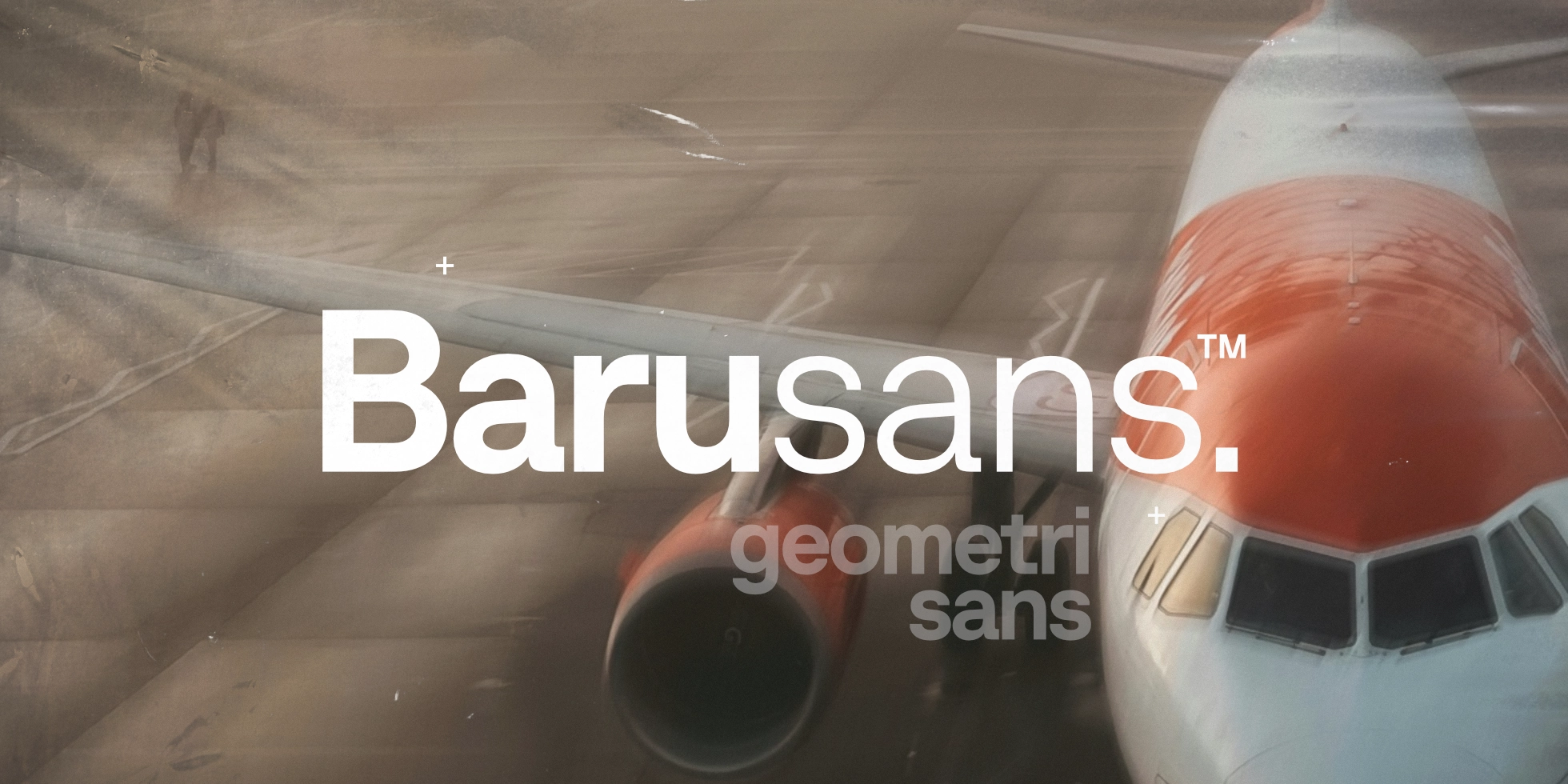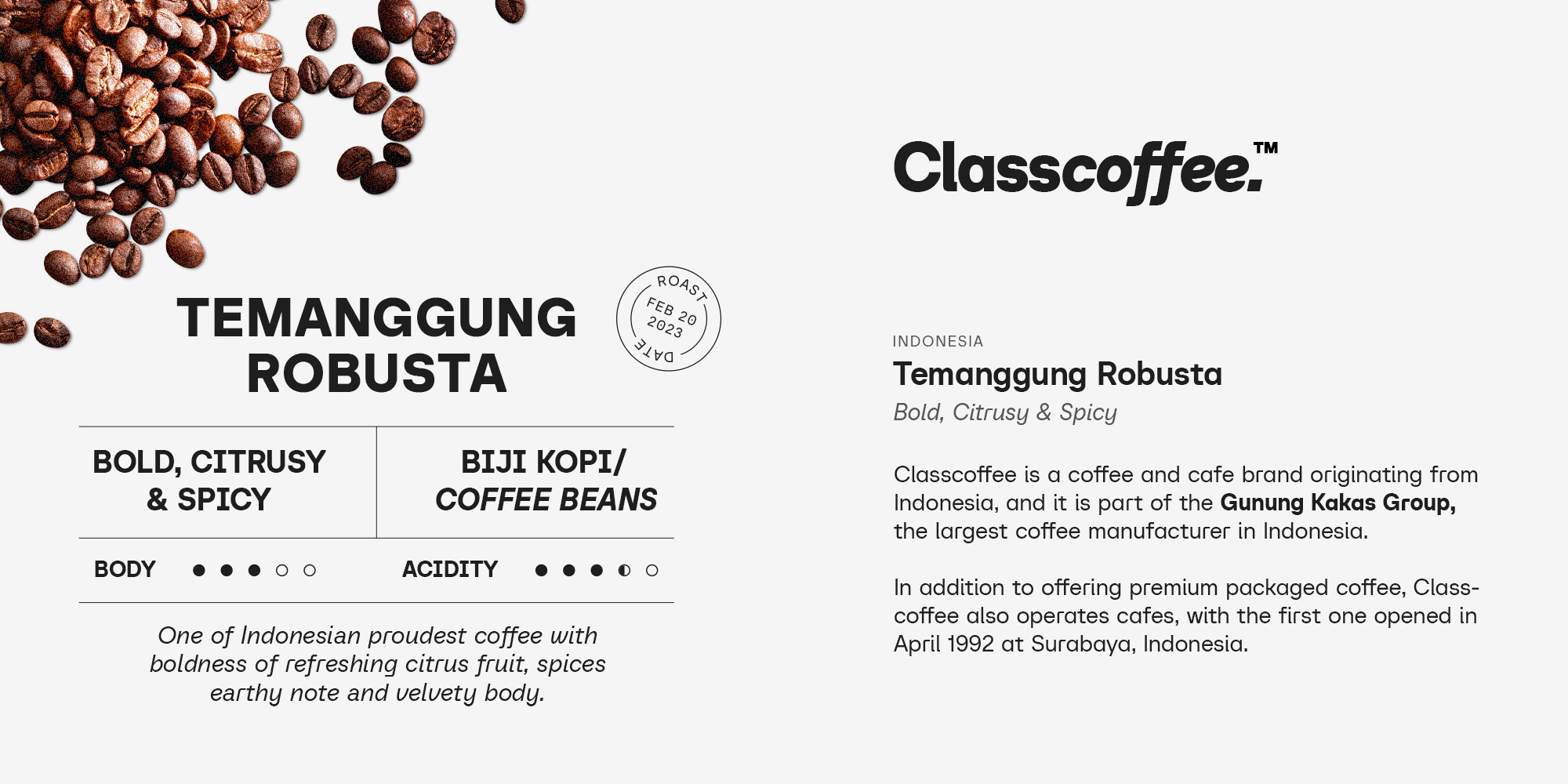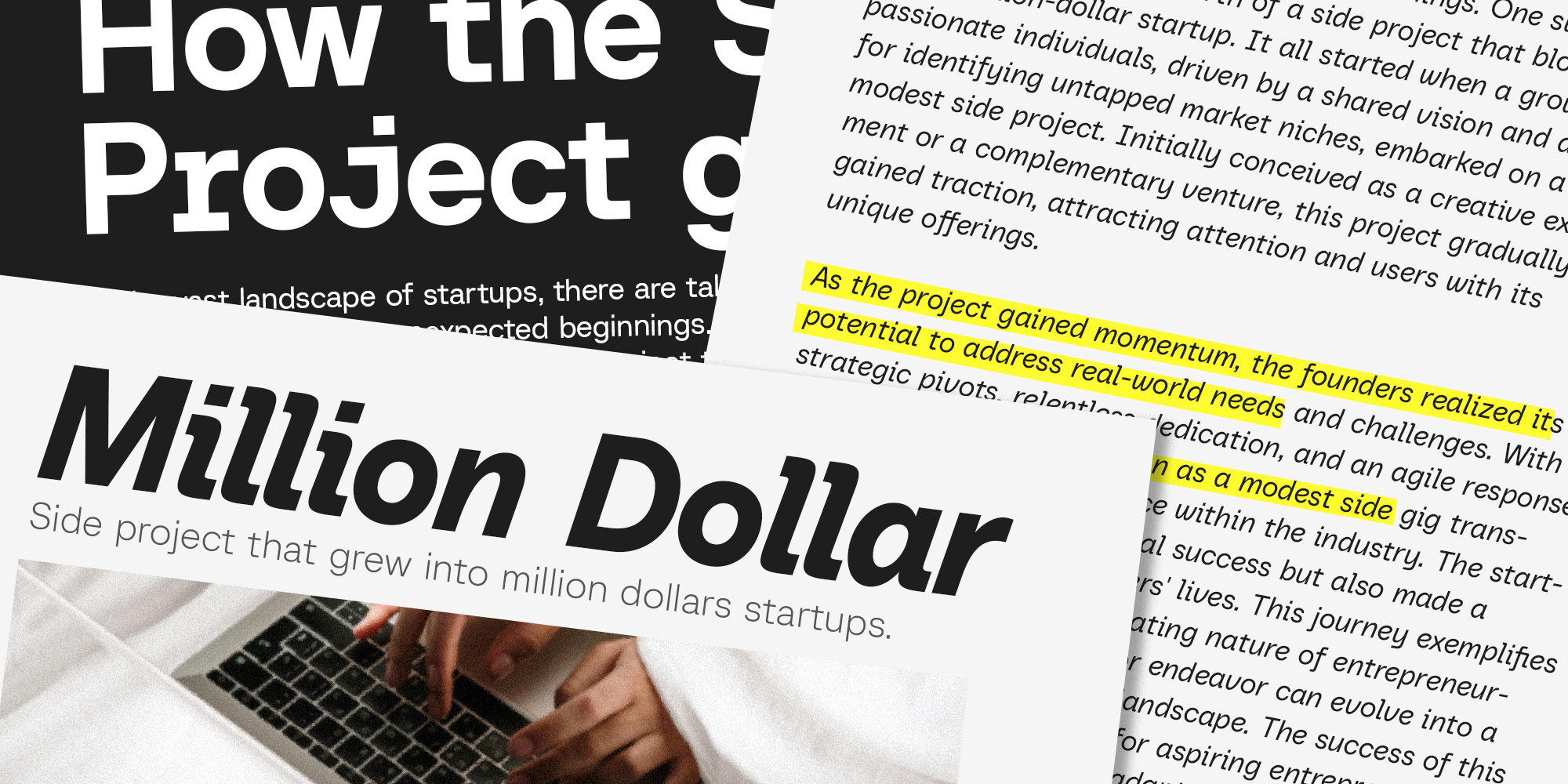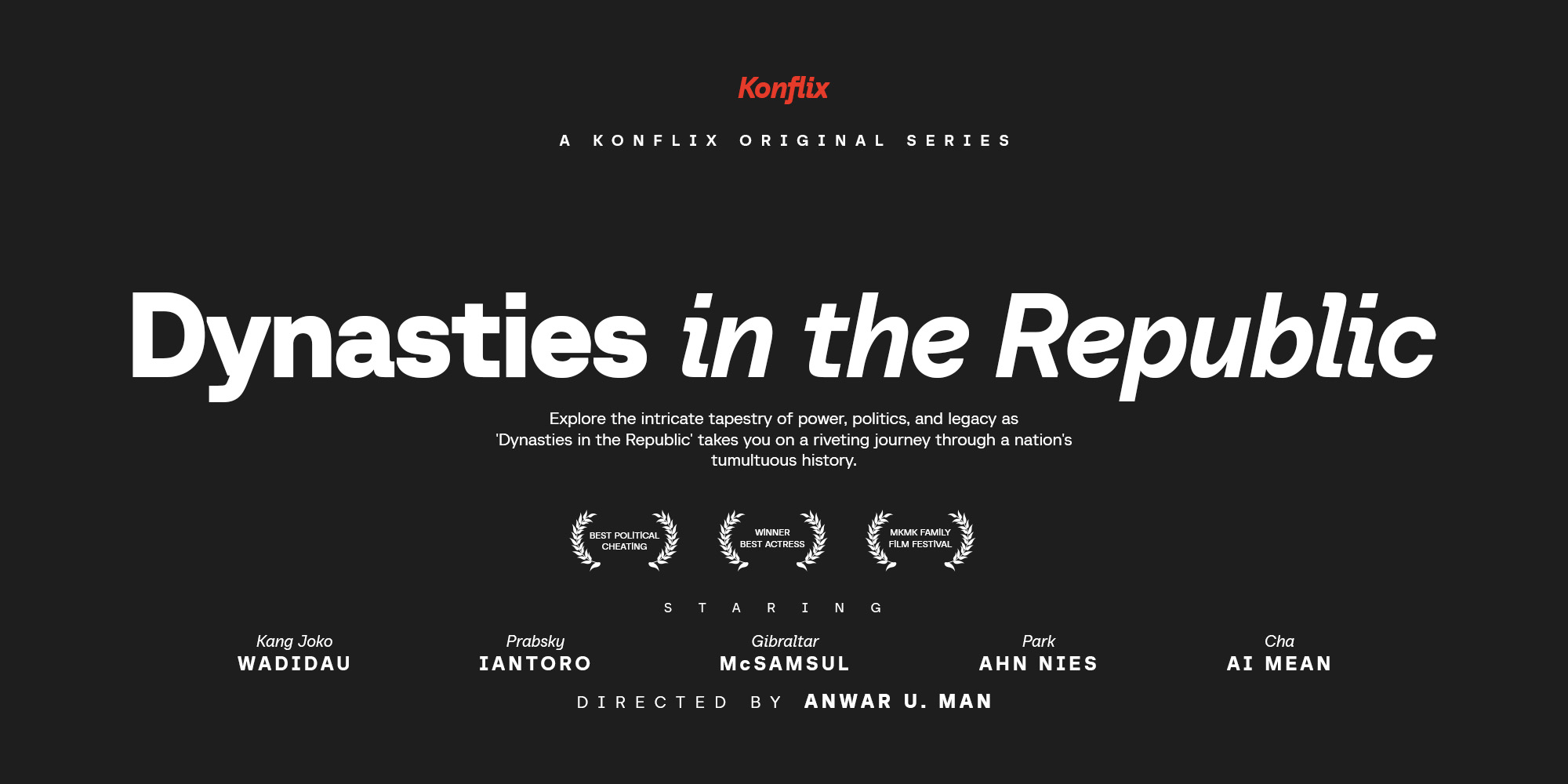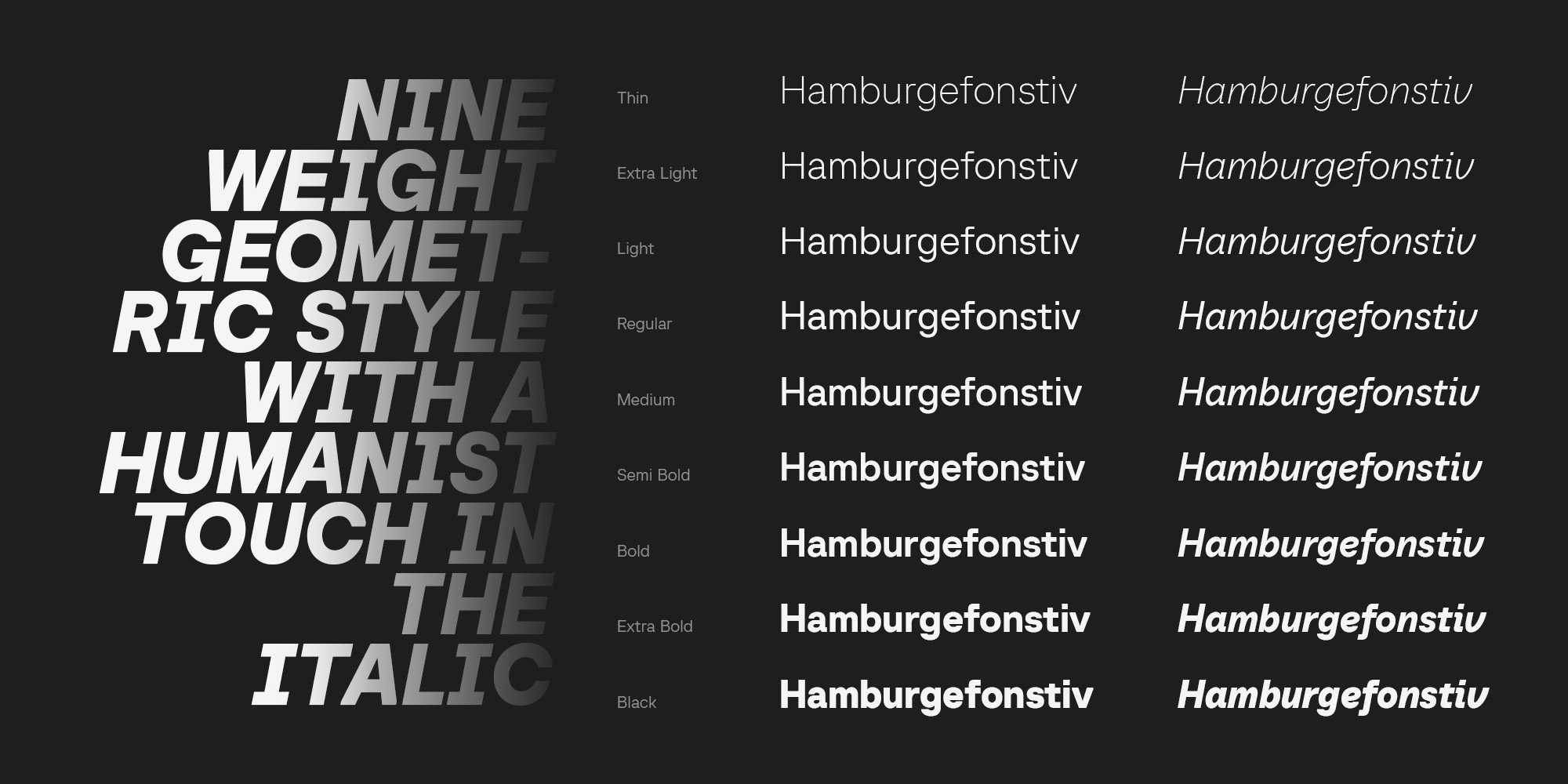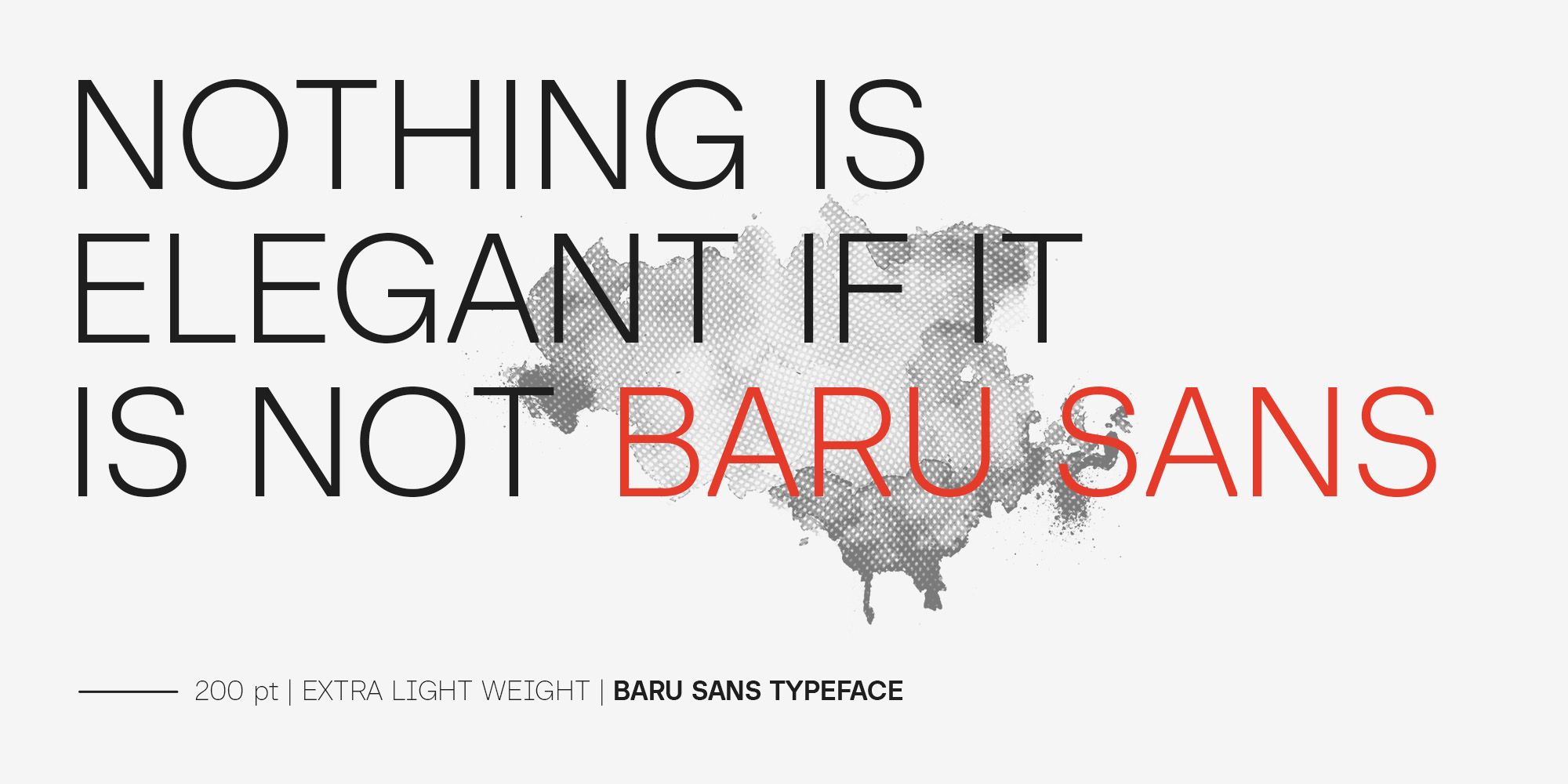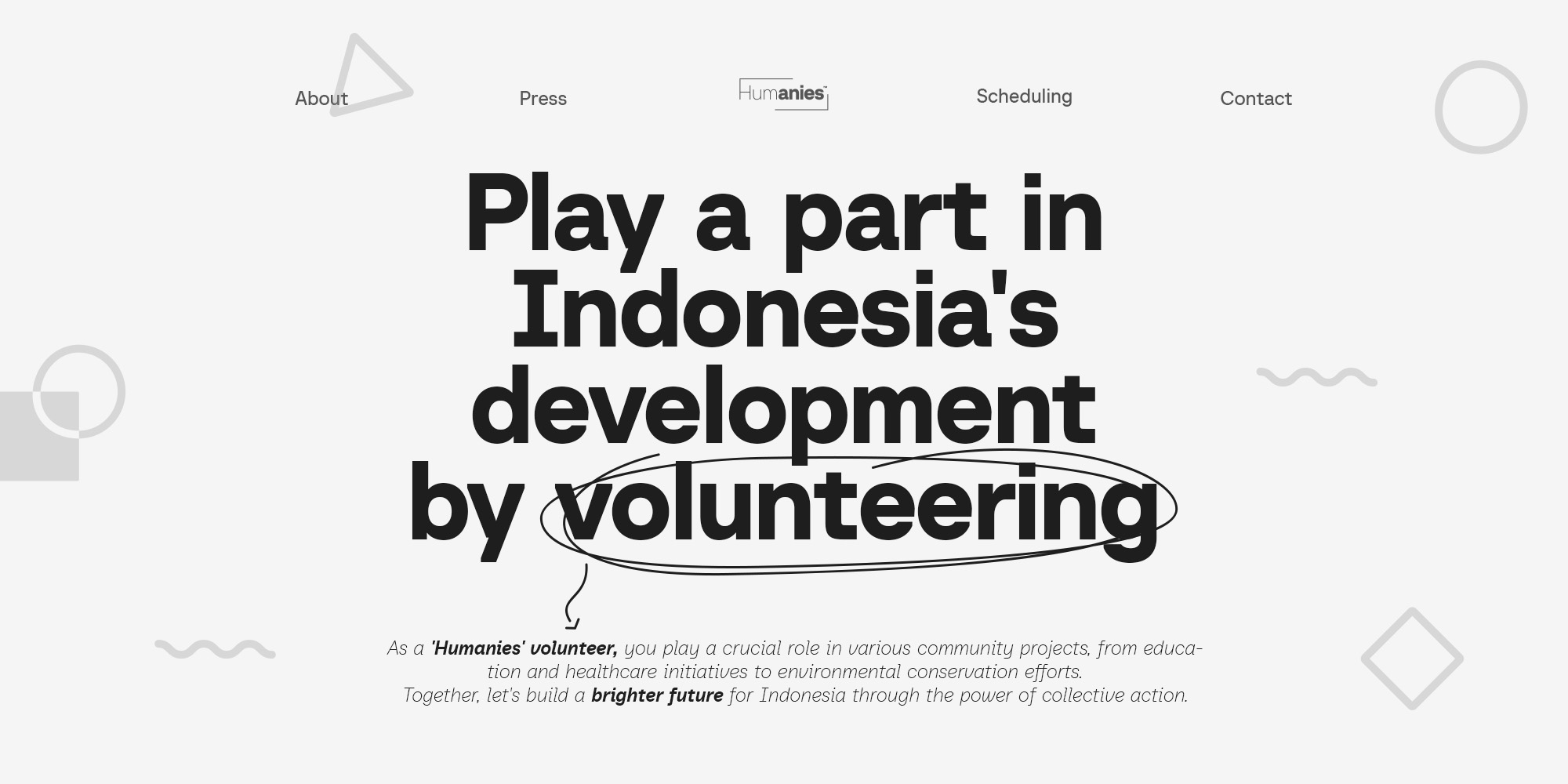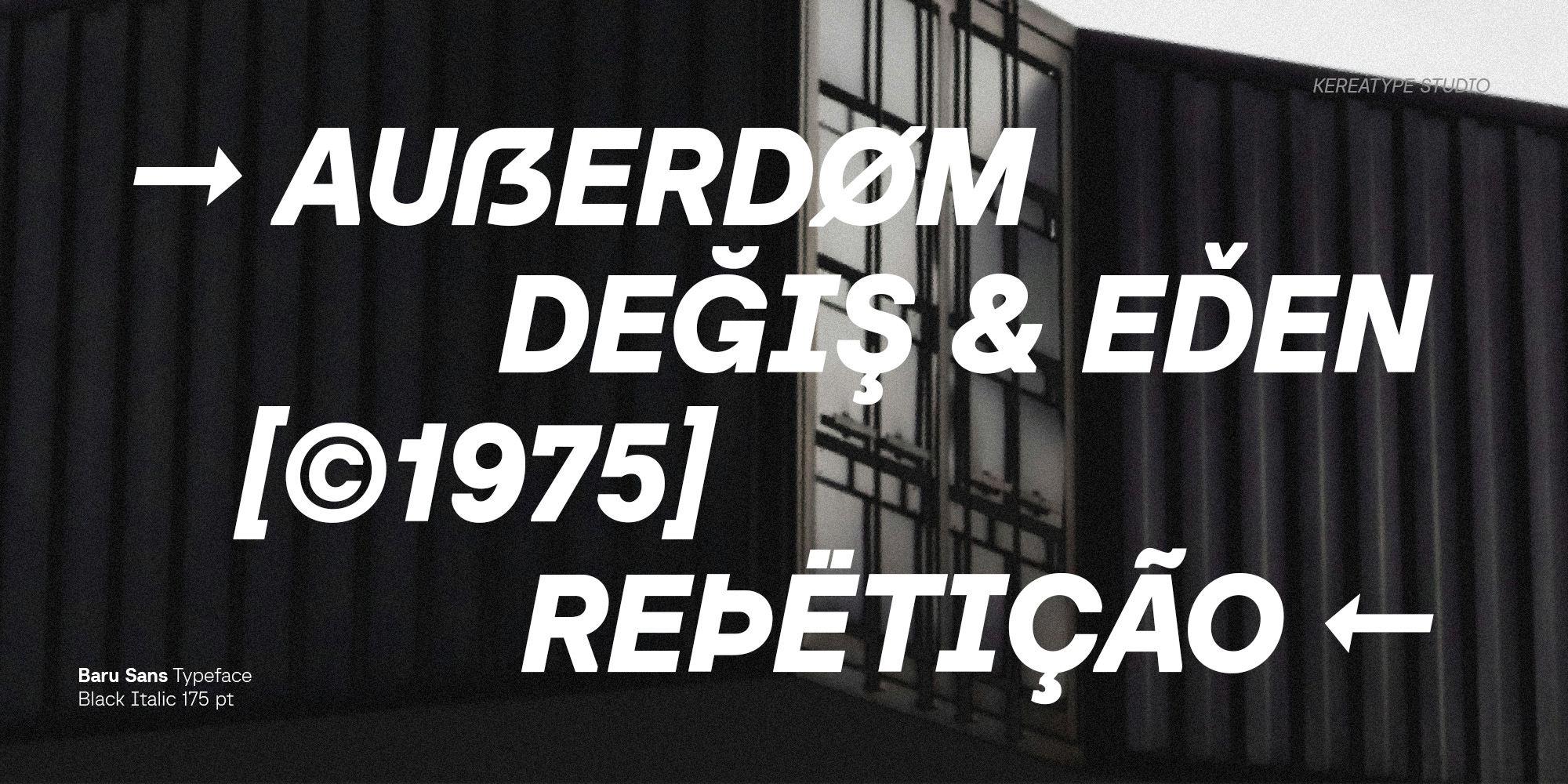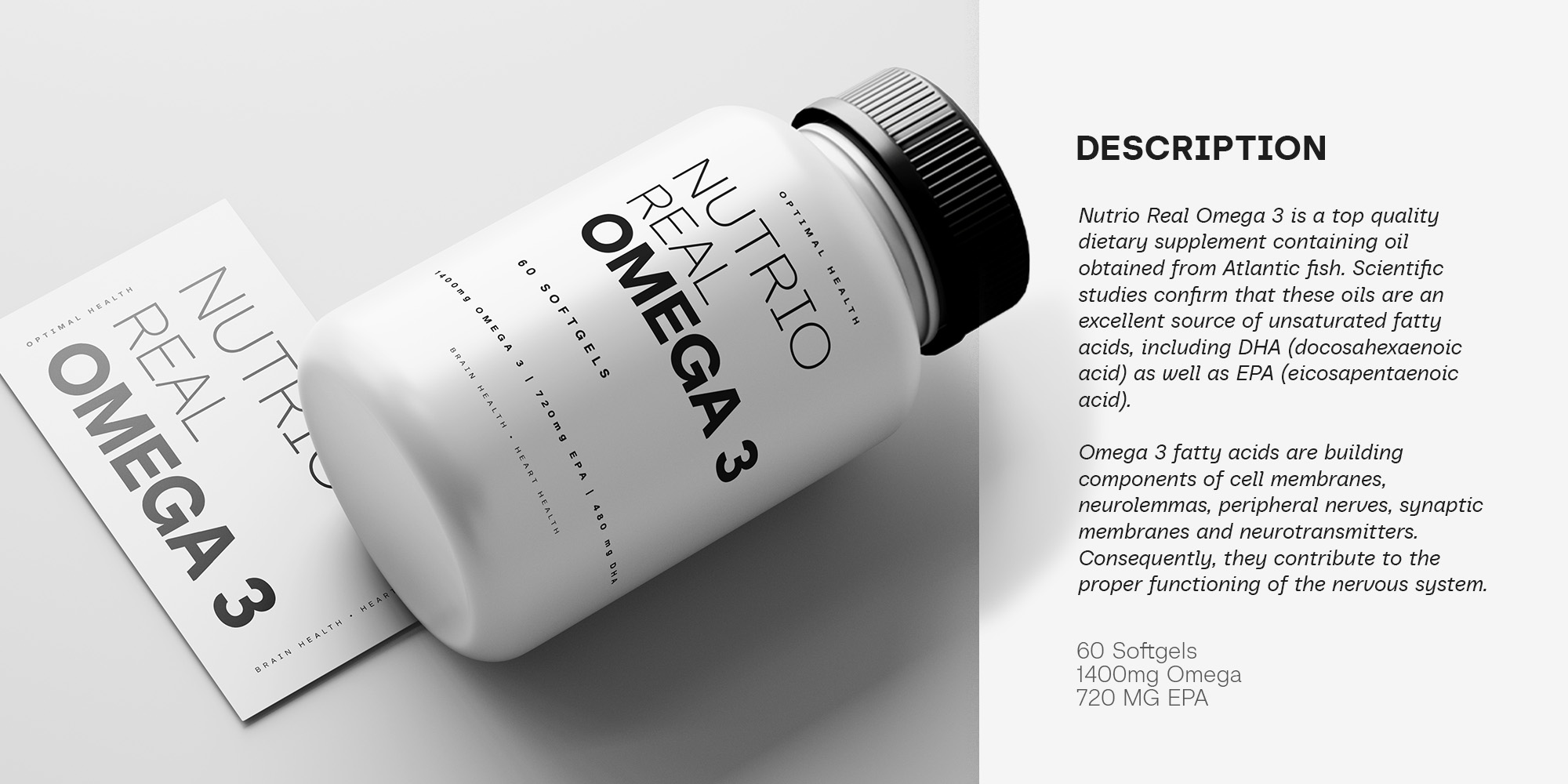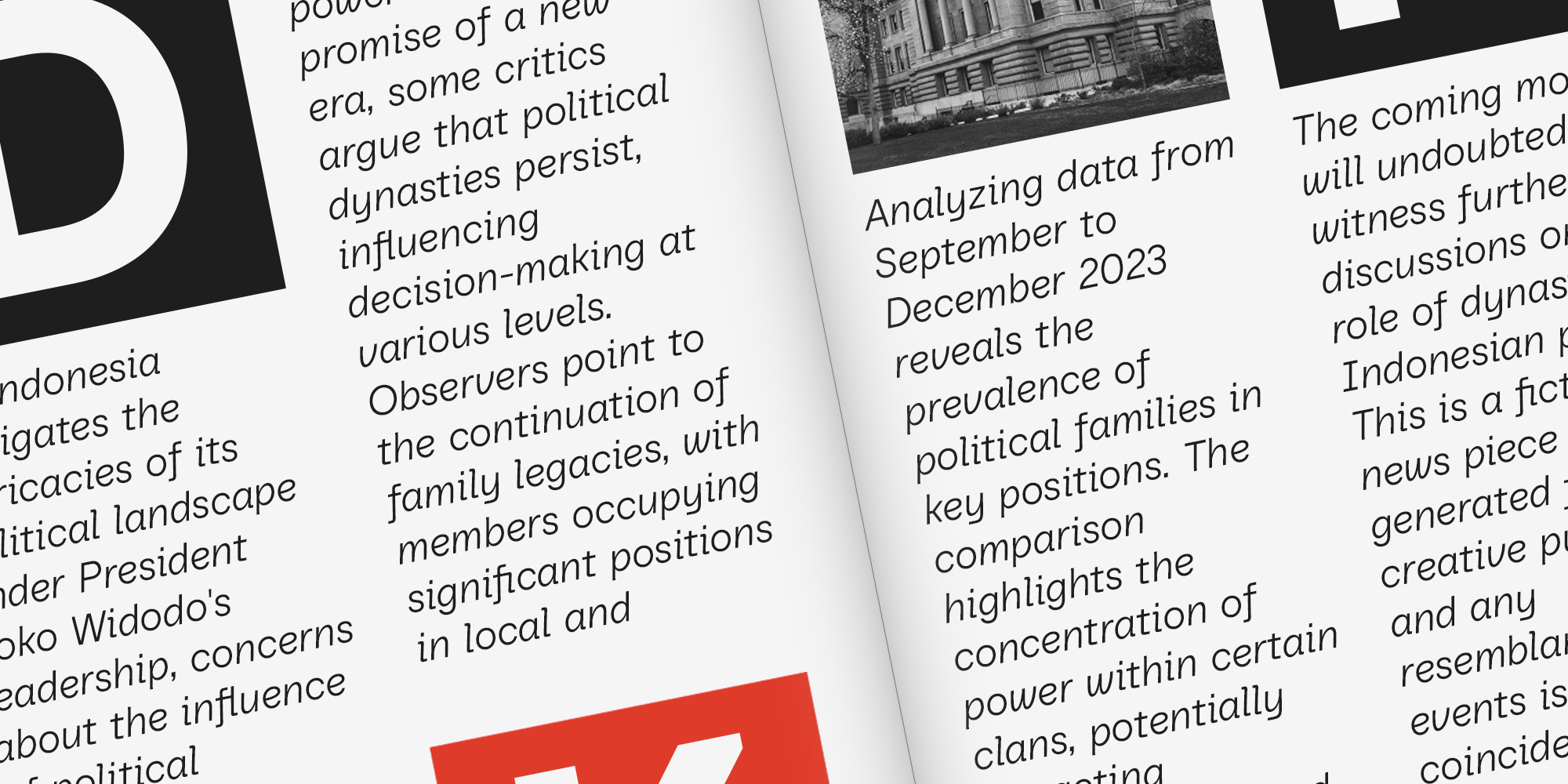
Baru Sans
Clean and Versatile Modern Sans Serif with Italics
Clean and Versatile Modern Sans Serif. Bring a fresh, professional look to your creative projects with Baru Sans, a versatile modern sans serif font designed for maximum clarity and impact. With its clean lines and geometric foundation, Baru Sans is the perfect choice for designers seeking a typeface that balances contemporary aesthetics with exceptional readability across all platforms.
Designed for Modern UI and Minimalist Branding. Baru Sans is specifically engineered to meet the demands of digital-first branding and complex user interfaces. Whether you are building a tech startup website, designing a minimalist mobile app, or creating high-visibility corporate signage, this modern sans serif font ensures your message is delivered with precision and style. Its neutral yet distinct character makes it adaptable to both bold headlines and delicate body text.
Professional Grade Quality and Language Support. Baru Sans font family comes with a comprehensive set of glyphs and extensive multilingual support, making it a reliable tool for global design agencies. Built with careful attention to spacing and kerning, it provides a seamless reading experience. Ideal for professional branding, contemporary editorial work, and clean social media layouts that demand a sophisticated, modern touch.